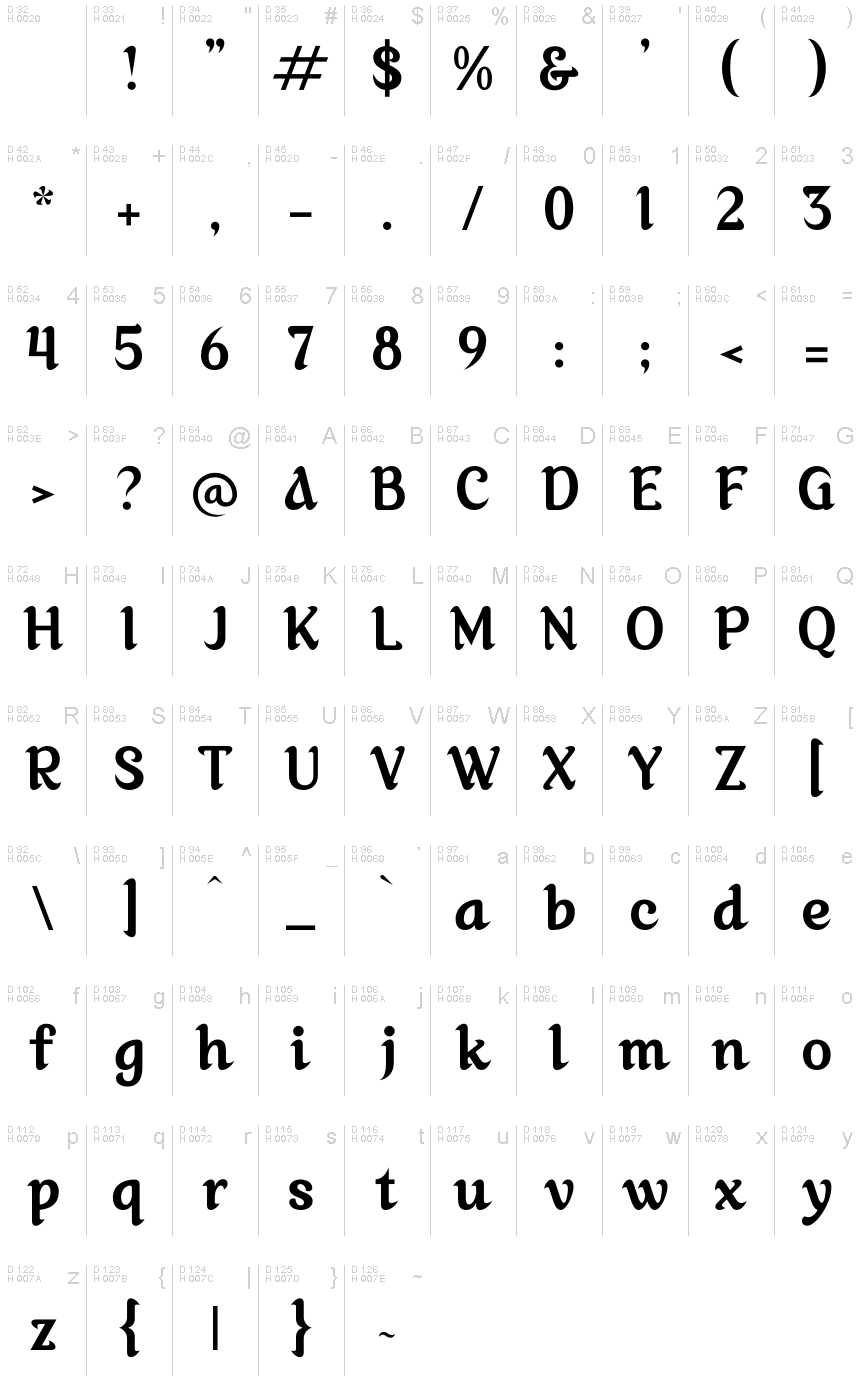
Akilvan
Akilvan, a captivating serif font designed by Storytype Studio, exudes a rich, elegant aesthetic. Its ornate, yet refined letterforms command attention, evoking a sense of timeless sophistication. The intricate serifs and refined stroke modulation lend Akilvan a distinctive character, making it a versatile choice for a wide range of design applications.
Akilvan's versatility shines through its ability to seamlessly adapt to diverse contexts, from high-end editorial layouts to impactful branding materials. Its classic sensibility and exceptional legibility make it an excellent selection for prestigious publications, formal correspondence, and elegant marketing collateral. Storytype Studio has crafted a font that balances tradition and modernity, offering designers a powerful typographic tool to elevate their creative visions.